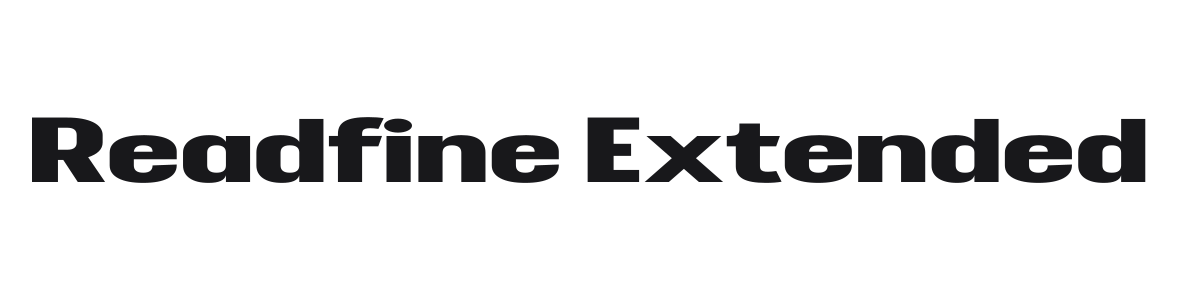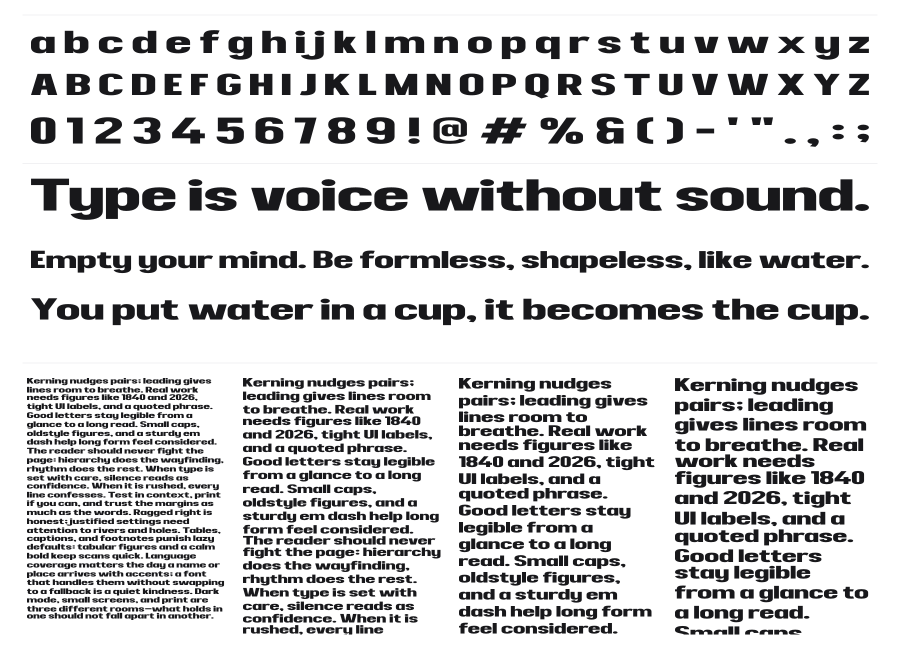
Readfine Extended
Readfine Extended is a heavy geometric sans with wide proportions and subtly rounded terminals that soften its bold mass. The near-monoweight strokes and generous width give it an authoritative, contemporary presence at display sizes. It sits comfortably in logo work, editorial headlines, and branding that needs weight without aggression.